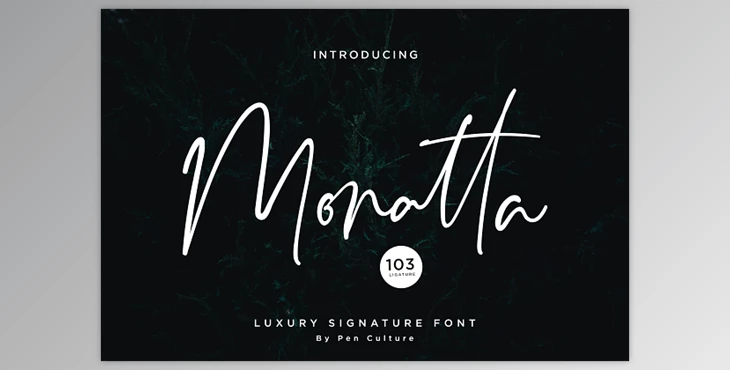
Monatta Font 3812117: Monatta is an elegant signature font. It was carefully designed with particular OpenType features like all caps, support for multilingual languages (including currencies) and 94 ligatures average numbers, and more. This font is perfect for all purposes and is easy to use.
Some great features of Monatta Font:
- Uppercase and Lowercase Letter
- Number and Punctuation
- Stylistic Alternate
- Multilingual Accent